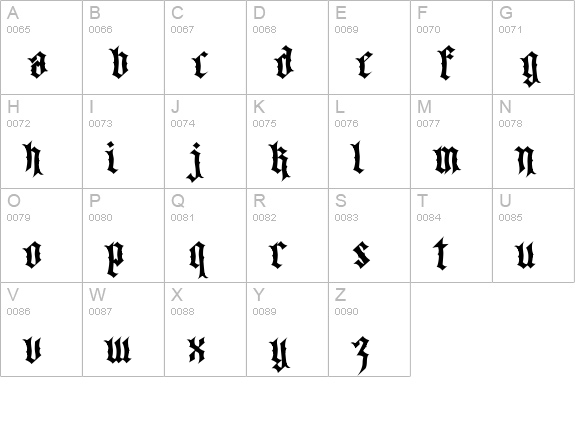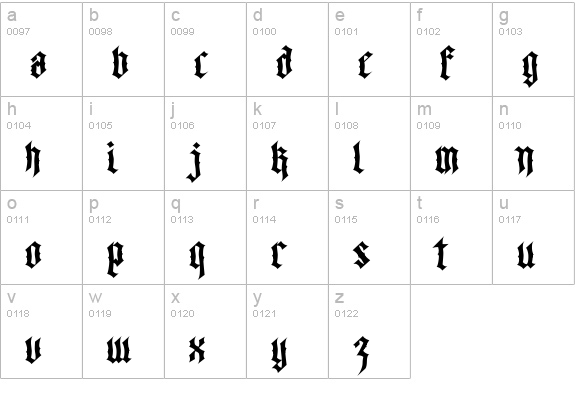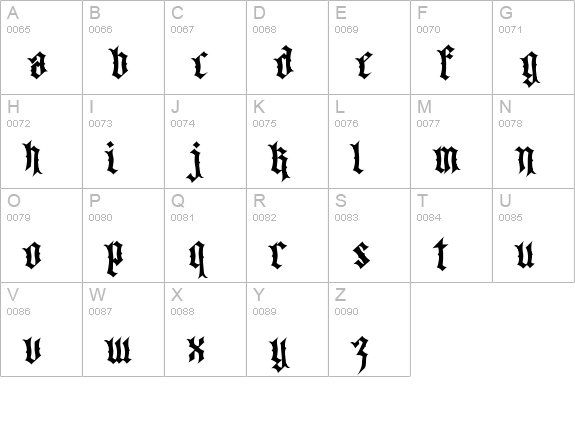
Walk Da Walk Three Font Details
Walk Da Walk Three is a free for personal use font in the Foreign Look > Old English category. It has been downloaded 2 times and is available for Windows, Mac and Linux.
Introducing Walk Da Walk Three, a captivating and versatile font that is sure to make a statement. With its bold and confident demeanor, this font exudes a sense of power and style, perfect for any project that demands attention. Walk Da Walk Three is not just any ordinary font – it is a free treasure trove of typographic excellence. Crafted with precision and finesse, this font offers a unique blend of elegance and modernity, making it suitable for a wide range of applications. Whether you're designing a logo, creating eye-catching headlines, or simply adding a touch of sophistication to your personal projects, Walk Da Walk Three has got you covered. Its clean lines and sharp edges make for a visually pleasing experience, while its graceful curves and subtle variations add a touch of personality. What sets Walk Da Walk Three apart is not only its stunning design but also its availability. This font is freely available to download at FontsMarket.com, providing you with the opportunity to unleash your creativity without any barriers. Now, you can bring your vision to life with ease, knowing that Walk Da Walk Three is at your disposal. So why wait? Embrace the power and beauty of Walk Da Walk Three and let your designs shine. With this remarkable font, you can effortlessly captivate your audience and leave a lasting impression. Get ready to elevate your typography game and embark on a journey of unlimited creativity. Download Walk Da Walk Three today, and let your imagination run wild.